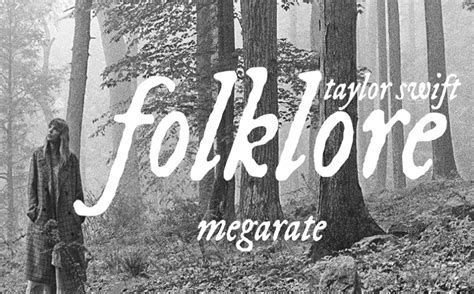
Taylor Swift’s folklore The Carillon
Browse by alphabetical listing, by style, by author or by popularity. Web the text uses a font called im fell dw pica, which was made by igino marini based on the types from fell types. Web archive of freely downloadable fonts.
Browse by alphabetical listing, by style, by author or by popularity. Web the text uses a font called im fell dw pica, which was made by igino marini based on the types from fell types. Web archive of freely downloadable fonts. Browse by alphabetical listing, by style, by author or by popularity.